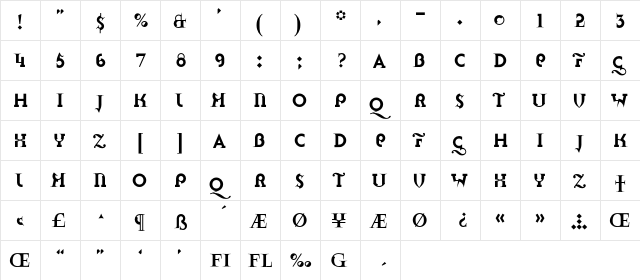
Nuke Plain
Design Context for Nuke Typeface
Nuke is a composed and adaptable typeface that performs quietly and consistently across a wide range of design contexts.